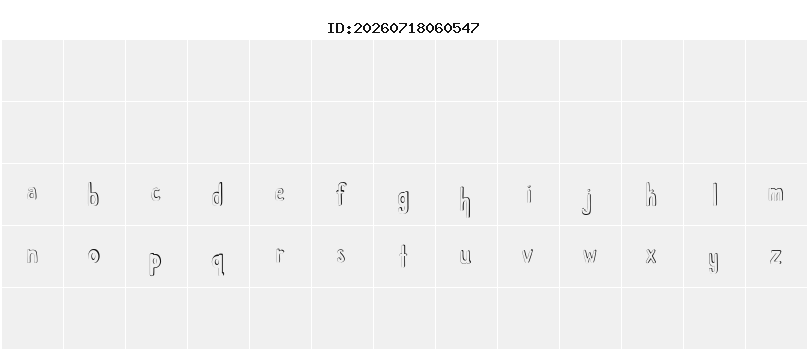
Childlike Wonder Preview
• Font Name: Childlike Wonder
• Full Font Name: Childlike Wonder
• PostScript Name: ChildlikeWonder
• Character Count: 26
• Designer: Vanessa Cox
About Childlike Wonder.ttf
Childlike Wonder.ttf is a modern, elegant sans-serif font designed for ultimate readability and visual harmony. Perfect for branding, headlines, web design, and print materials.